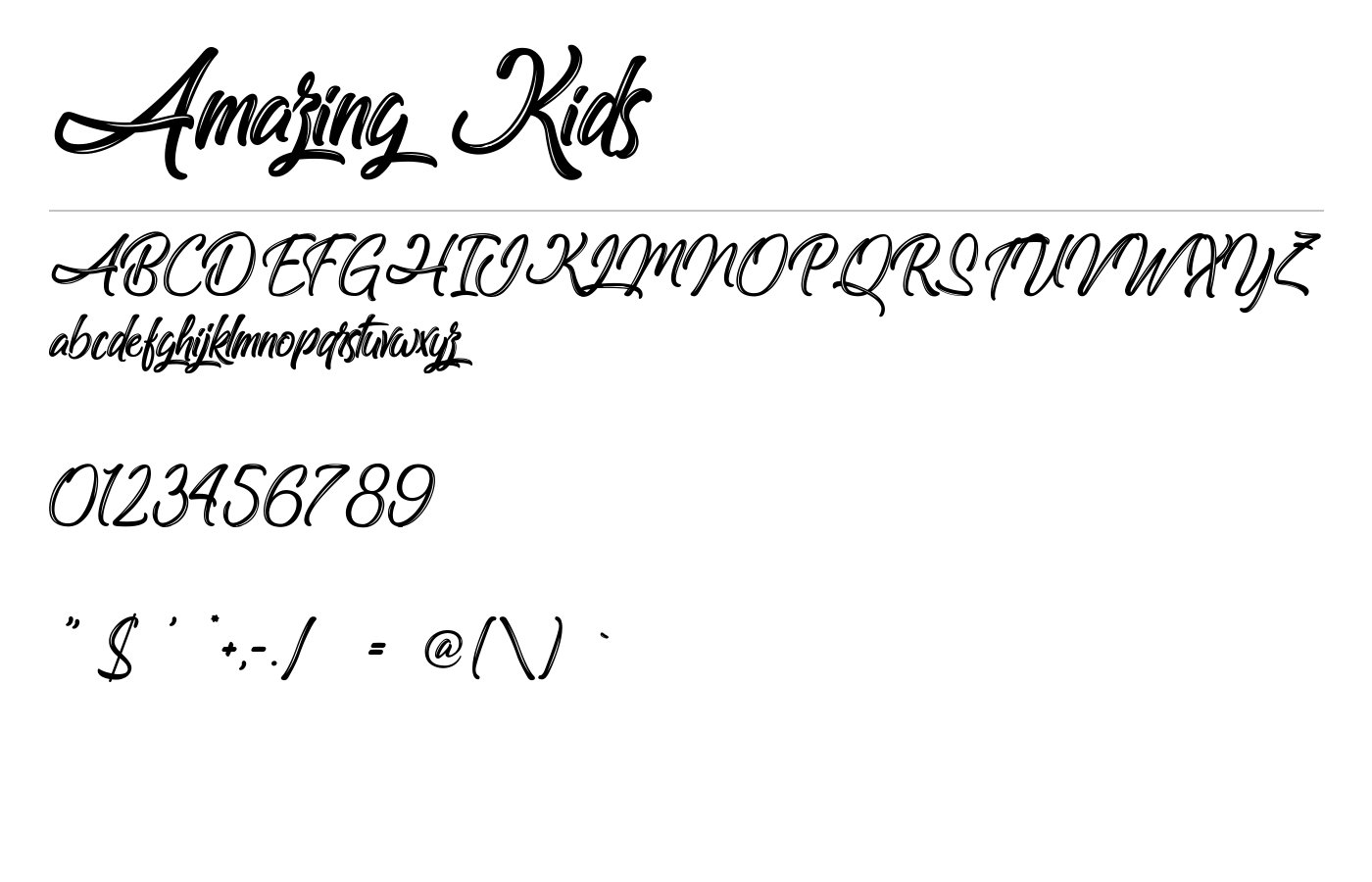
Amazing Kids is a lively and elegant script font with a playful yet sophisticated feel. Its flowing, brush-like strokes and dynamic letterforms make it perfect for creative projects that want to express energy and charm, such as children's products, invitations, or branding that seeks a hand-crafted, artistic look. This font works beautifully for headlines, logos, and decorative designs where a personalized, stylish touch is desired.
Amazing Kids Font
About Amazing Kids Font
| Font family | Amazing Kids Font |
| Designer | Typhoon Type - Suthi Srisopha |